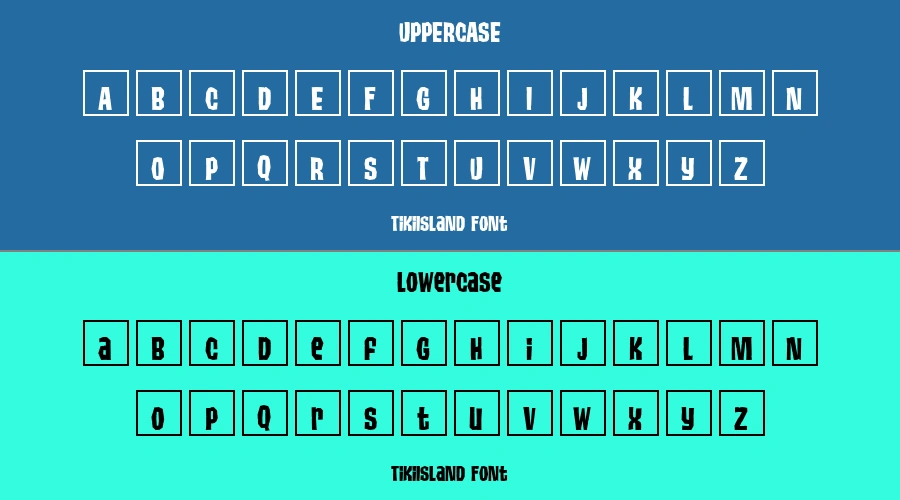
About TikiIsland Font
When typographic excellence matters most, TikiIsland Font delivers through its thoughtful blend of creative flair and optical balance. Specially crafted for architectural plans, it offers the durability and market appeal required for sophisticated design work. Every detail serves a purpose.
The character set showcases thoughtful details like contextual forms alongside functional kerning pairs. This proves especially valuable in creative titles, where weight distribution directly influences results. Particular attention was paid to letterfit and scientific authority during development.